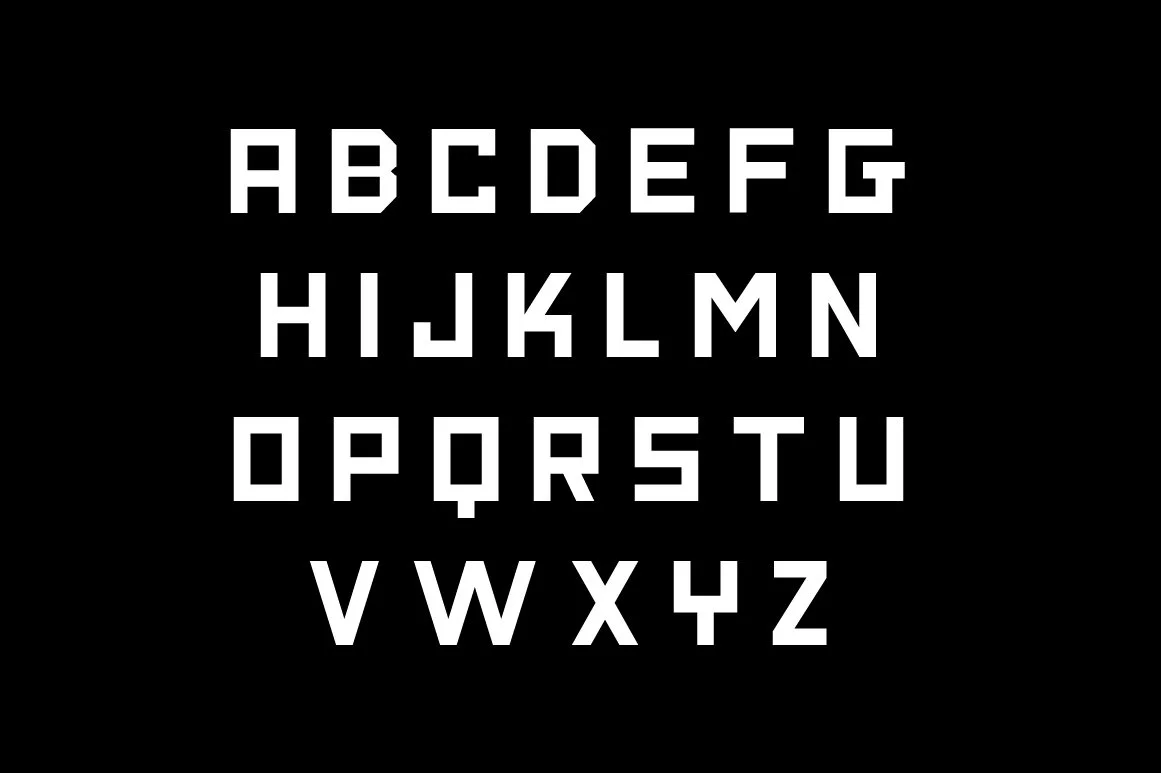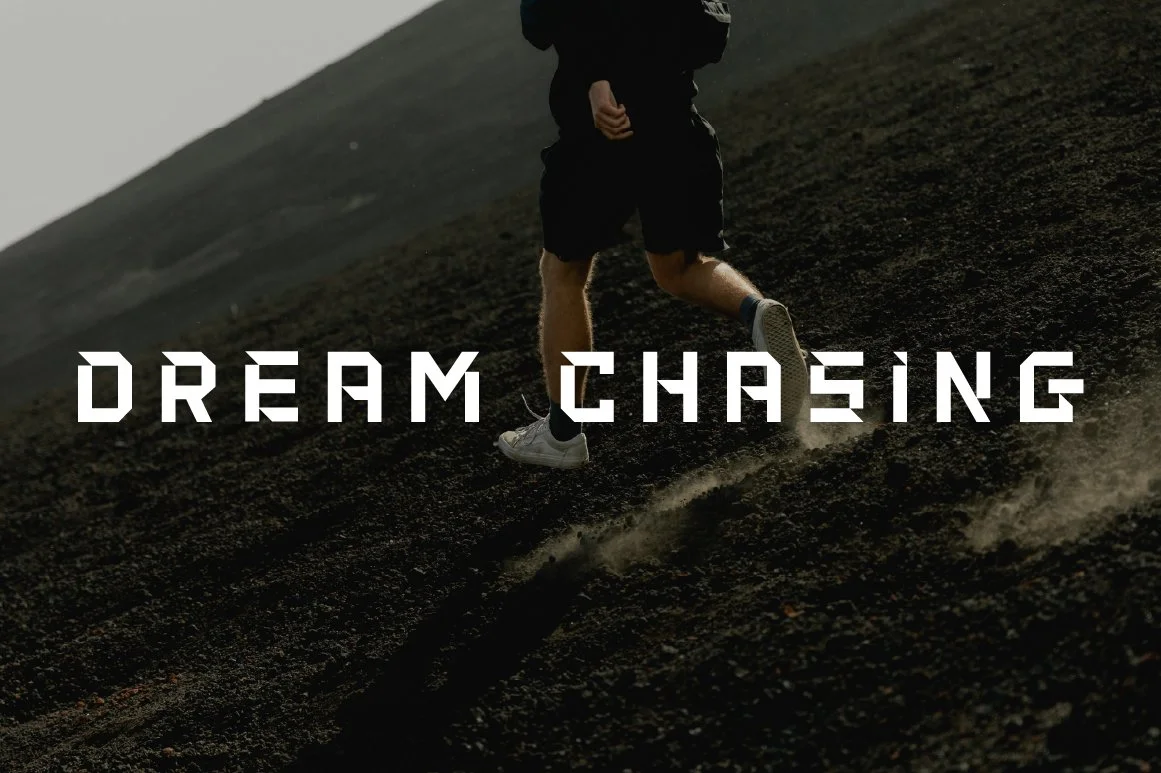
Fonts › Jackknife Image 1 of 11 Image 2 of 11 Image 3 of 11 Image 4 of 11 Image 5 of 11 Image 6 of 11 Image 7 of 11 Image 8 of 11 Image 9 of 11 Image 10 of 11 Image 11 of 11 Jackknife $15.00 Add To Cart Added! An edgy display font with a stupid-sharp edge. Test It Out Regular An edgy display font with a stupid-sharp edge. Font Size: 40px Letter Spacing: 0px Edge-Cut An edgy display font with a stupid-sharp edge. Font Size: 40px Letter Spacing: 0px Reviews Reviewer Name Review Date Star Rating Description Posted on Etsy Product Show More You Might Also Like Happy Camper $15.00 Valentina $15.00 Mentalist - Display Font Sale Price: $5.00 Original Price: $15.00 Sale Mason Dixon $15.00 Hotel Foxtrot $15.00